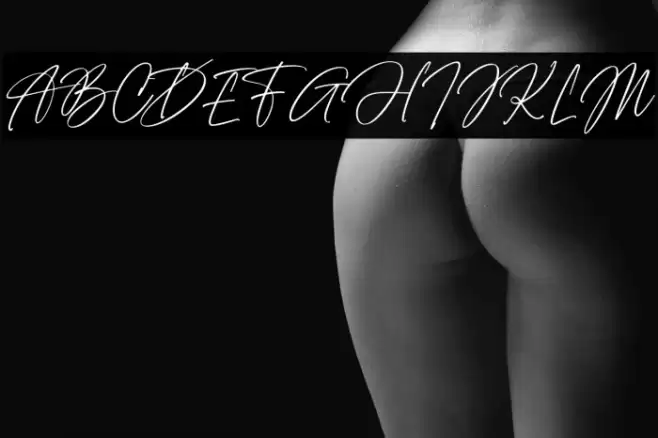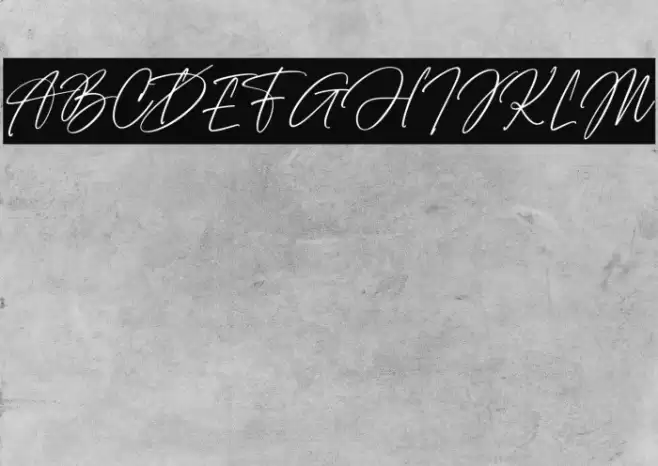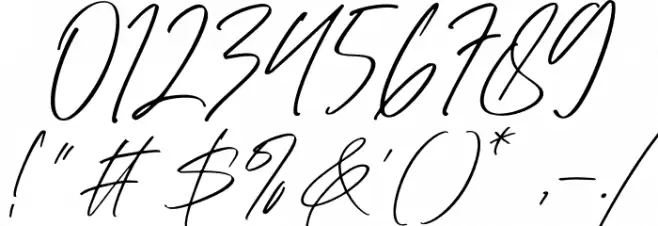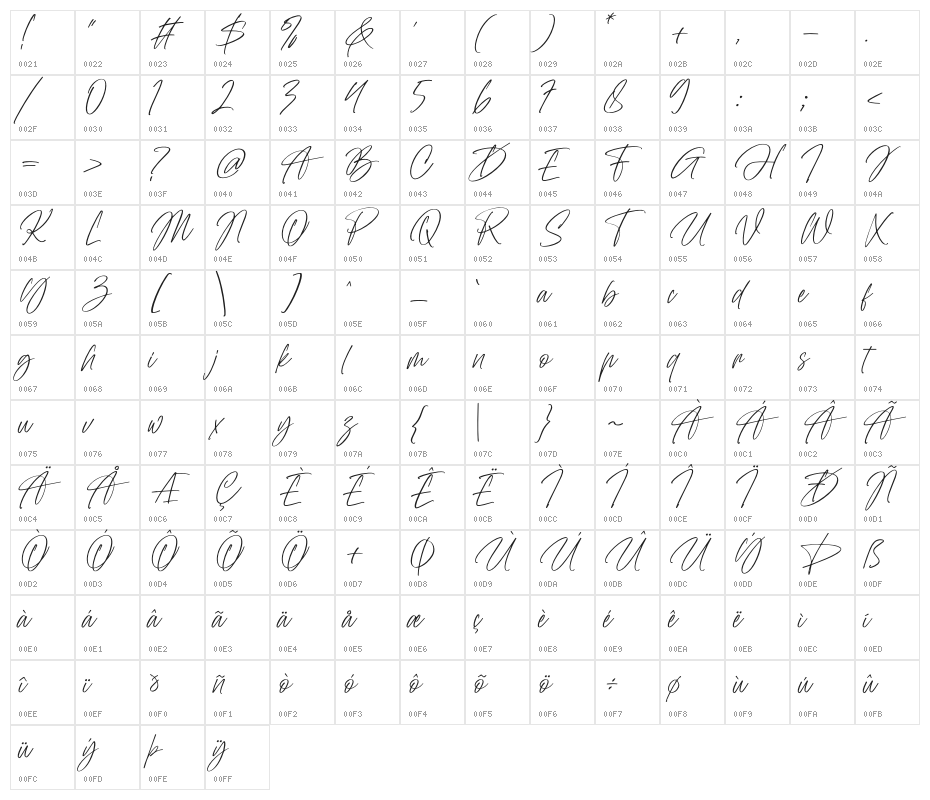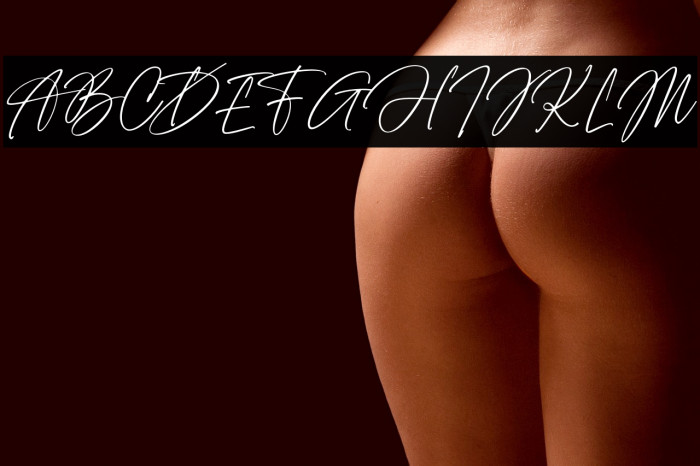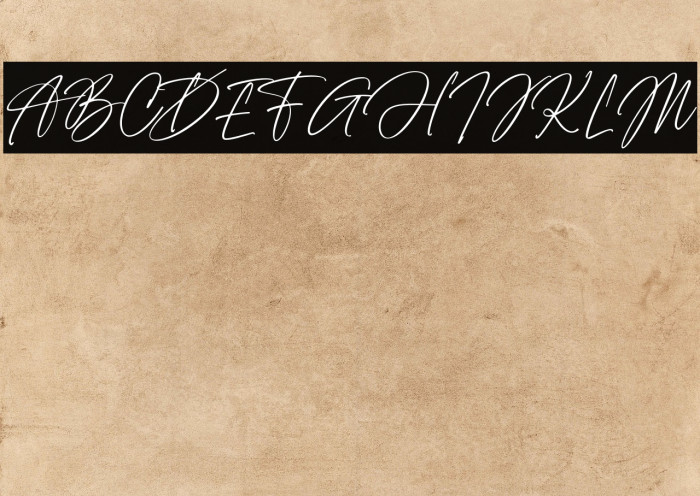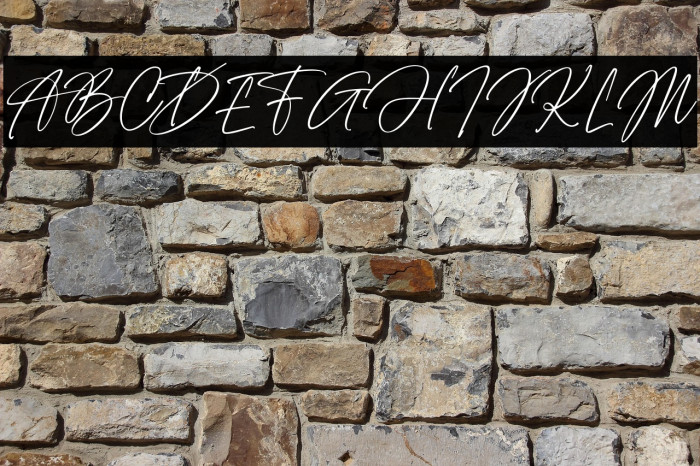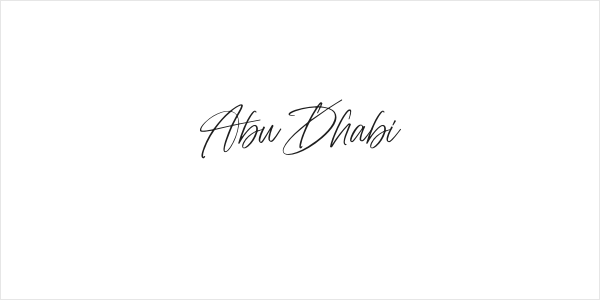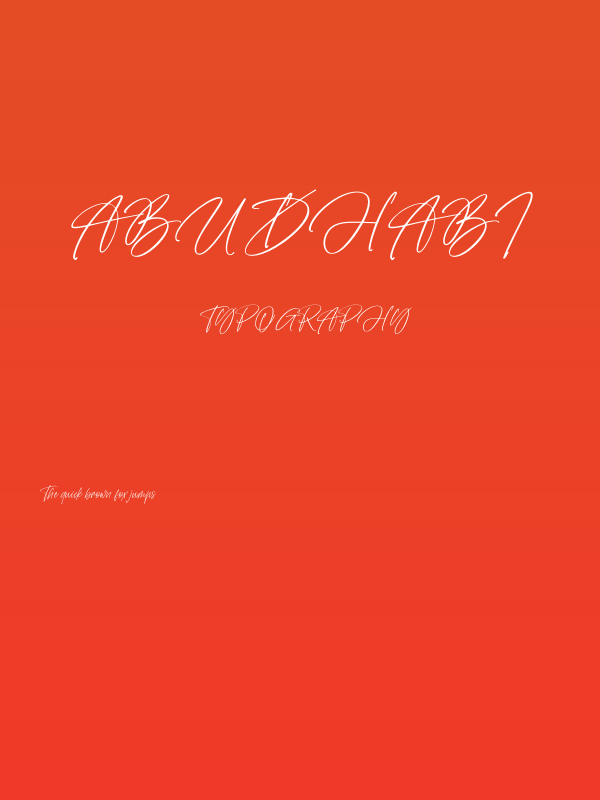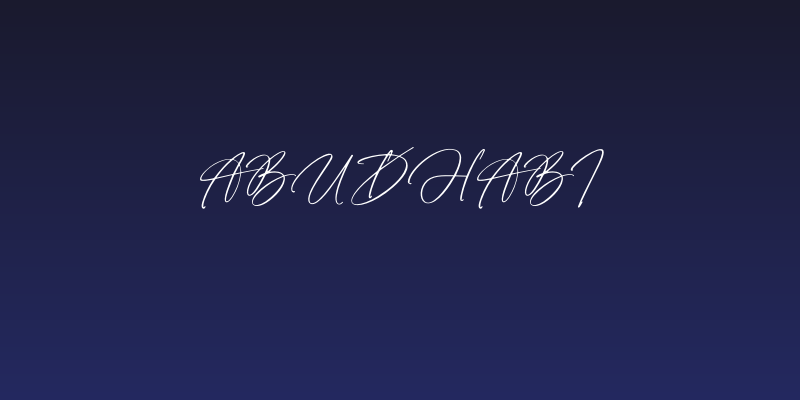
Abu Dhabi Font
Abu Dhabi Description
This font exudes a sense of elegance and fluidity, characterized by its cursive, handwritten style. The letters are connected in a smooth, flowing manner, giving it a personal and artistic touch. The uppercase letters are slightly more ornate, with loops and curves that add a decorative flair. The lowercase letters maintain a consistent flow, enhancing readability while preserving the artistic style. The numerals are distinct yet harmonize well with the overall script, and the special characters are crafted to match the font's aesthetic. This font is perfect for projects that require a personal, elegant touch.
A cursive, handwritten font with elegant, flowing letters from Uncategorized fonts.
- Font: Abu Dhabi
- Proposed Projects: Ideal for wedding invitations, greeting cards, personal branding, and artistic projects.
- Overall Style: Elegant
- Use Case: Logos, Invitations, Personal Branding